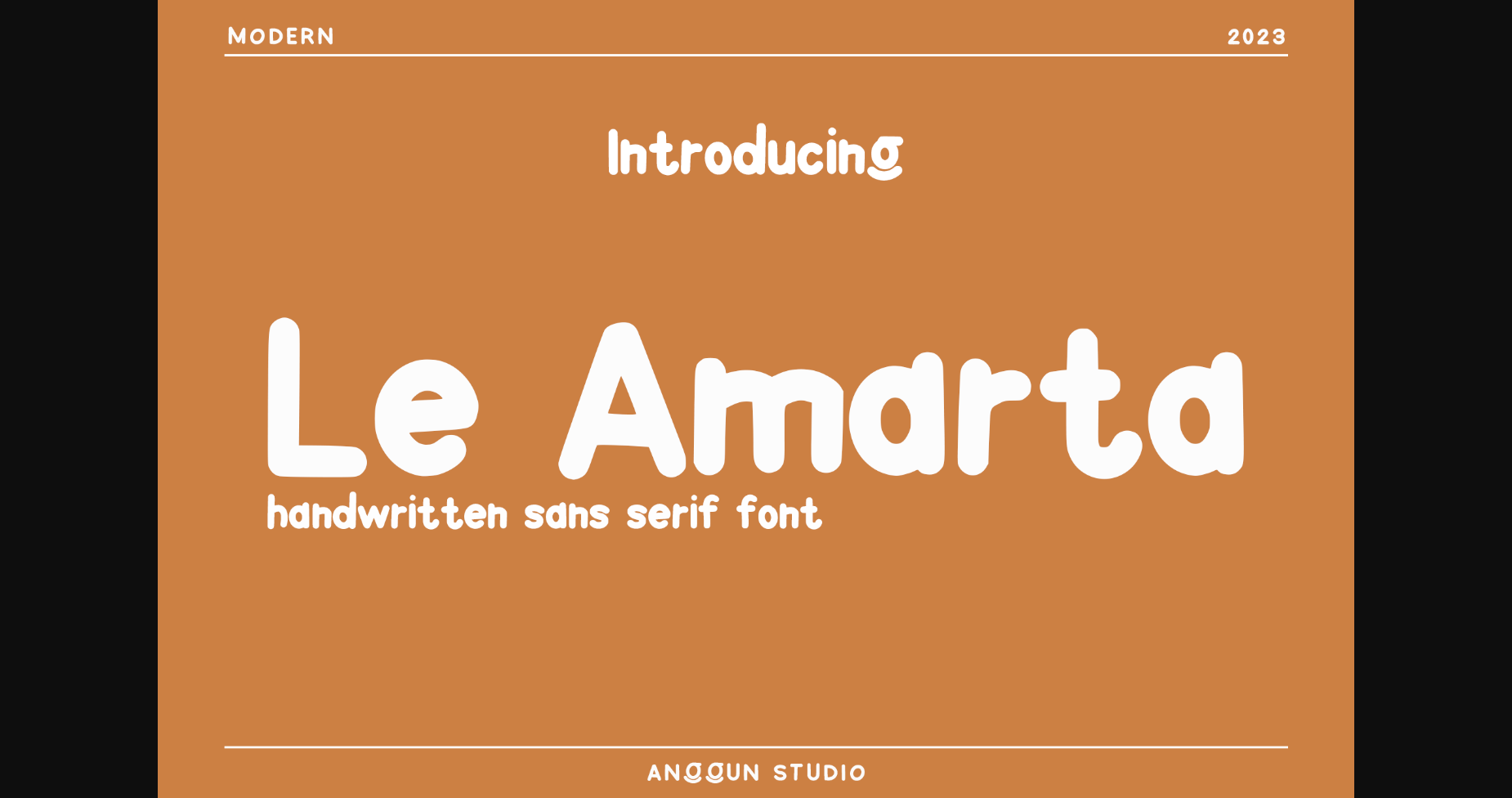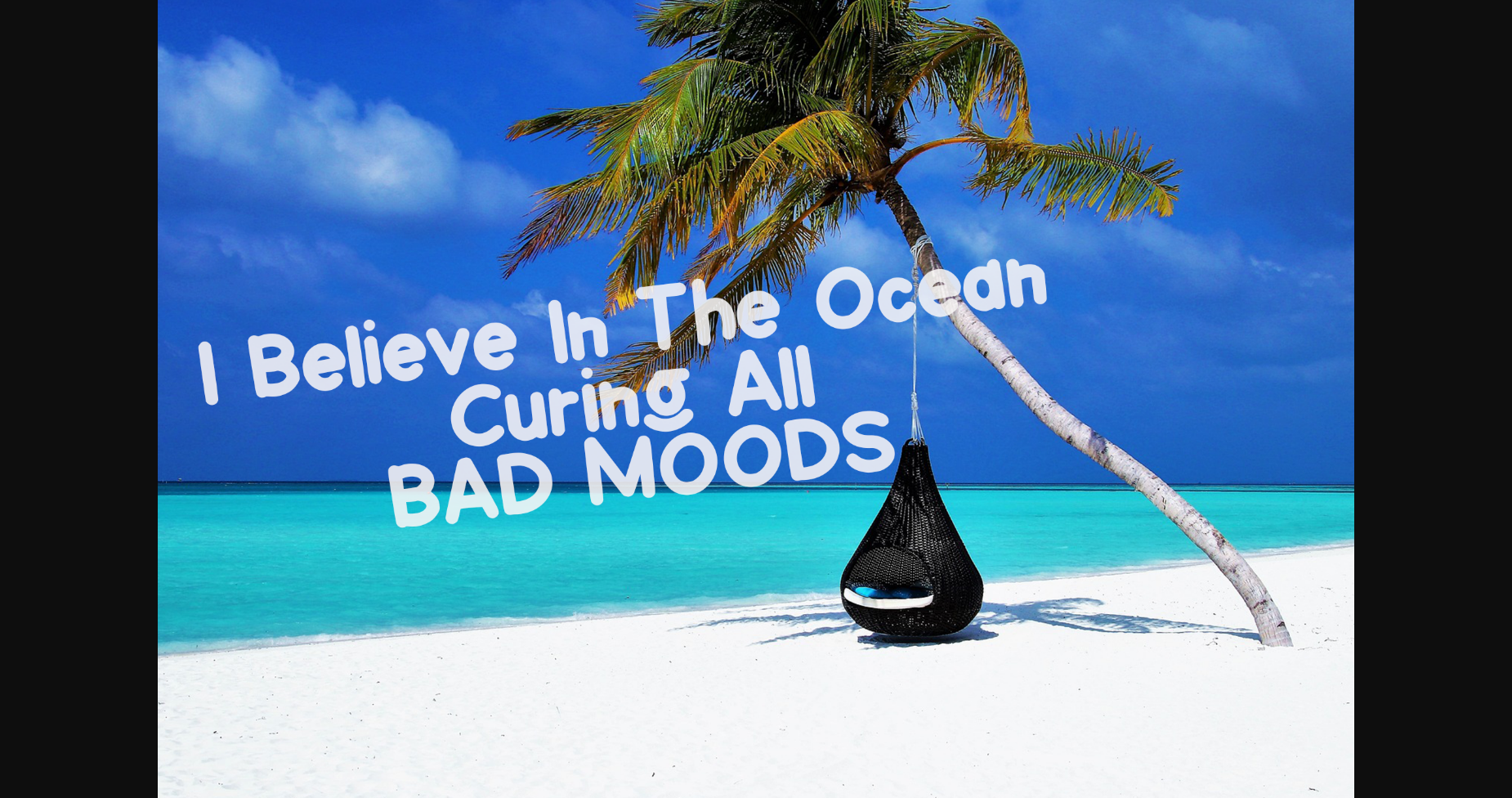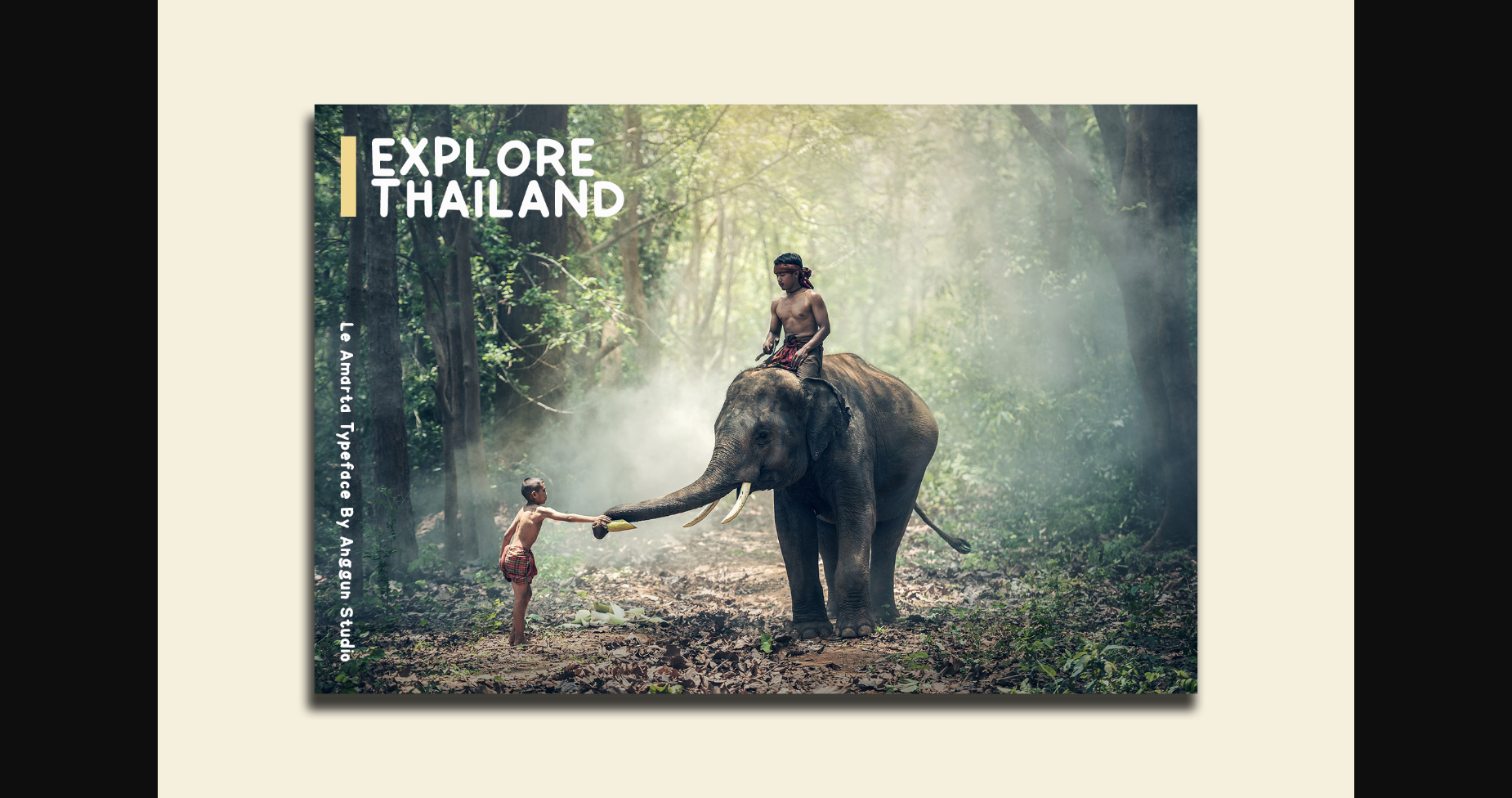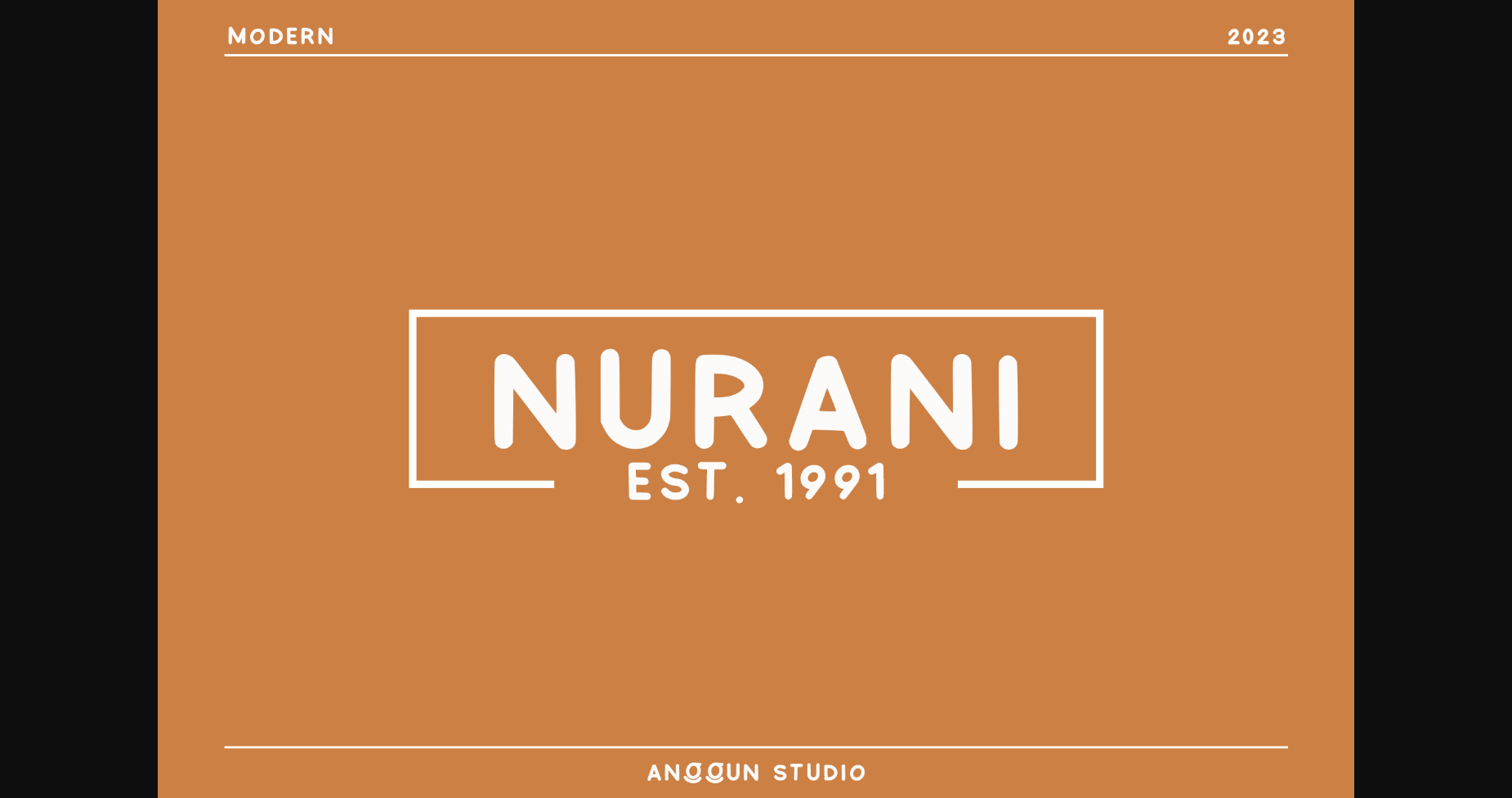
About Le Amarta Font
Le Amarta is a classic and simple sans serif font. It can easily be matched to an incredibly large set of projects, so add it to your creative ideas and notice how it makes them stand out!
Le Amarta includes a full set of gorgeous uppercase and lowercase letters, numerals and punctuation.